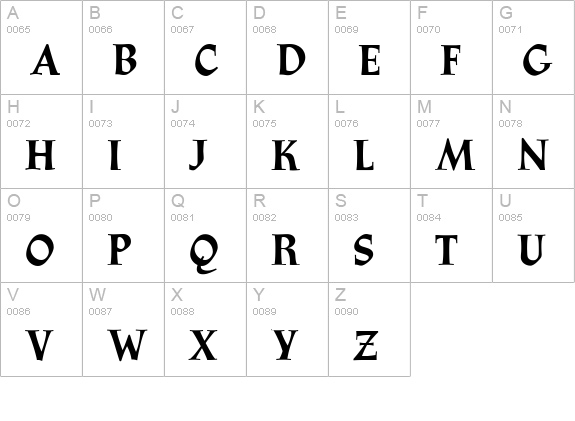
CgAthenaeumBold is a bold and elegant serif font that exudes sophistication and class. Its timeless design makes it perfect for a wide range of projects, from branding to editorial design. The thick strokes and sharp serifs give CgAthenaeumBold a strong presence on the page, making it ideal for headlines and titles that need to make a statement. What sets CgAthenaeumBold apart is that it is not only a high-quality font, but it is also free to download at FontsMarket.com. This means that you can add this stunning typeface to your collection without breaking the bank. Whether you are a graphic designer, a student, or a hobbyist, CgAthenaeumBold is a versatile font that will elevate your work and help you stand out from the crowd. So why wait? Download CgAthenaeumBold today and take your design projects to the next level with this exquisite font that combines timeless elegance with modern appeal.